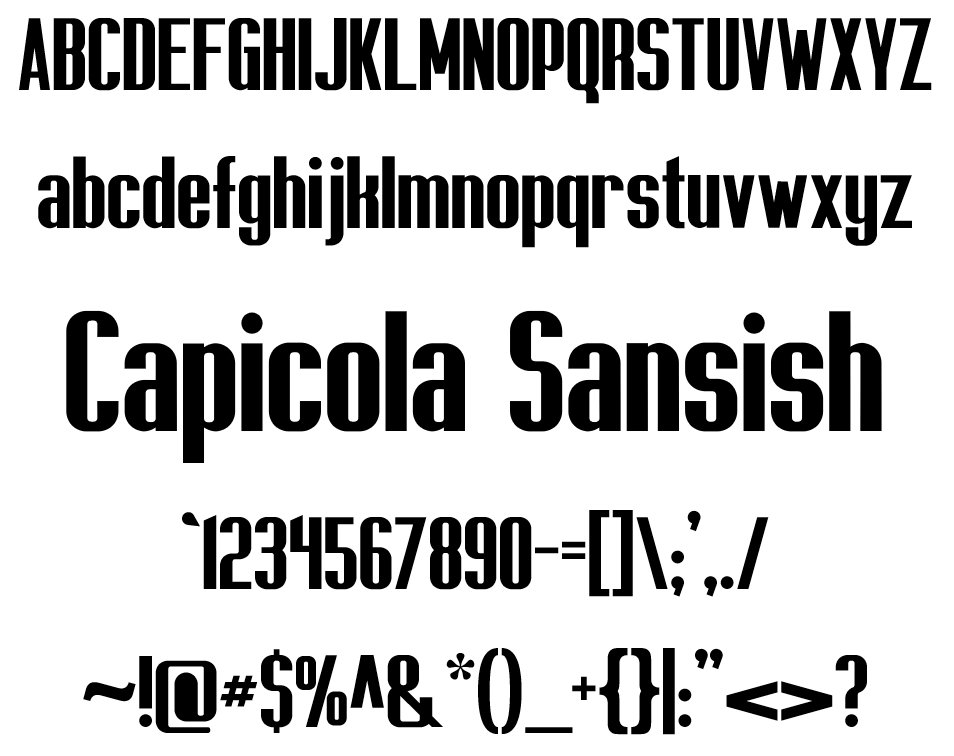
The Perfect Blend of Style and Nuance: Capicola Sansish Font
Have you ever found yourself in a creative conundrum, where you need to convey a sense of importance without overpowering the message? You’re not alone. As designers, we’ve all been there – stuck between the subtle and the bold. That’s where the Capicola Sansish Font comes in – a masterful blend of style and nuance that’s sure to elevate your designs.
Capicola Sansish Font is designed to fill that sweet spot where you almost need bold, but not quite. Its slightly thick sans-serif lines create a sense of sophistication without overwhelming the viewer. Whether you’re crafting a logo, heading, or body text, this versatile font is sure to bring a touch of elegance to your designs.
Capicola Sansish Font Key Features
- Font Family: Capicola Sansish, a unique sans-serif font designed for modern and minimalist designs.
- Unique Characteristics: The font features a clean, geometric design with subtle rounded edges, giving it a friendly and approachable feel.
Designer Review: Capicola Sansish Font
I was excited to dive into the Capicola Sansish Font, and I must say it’s a unique blend of modern and vintage elements. ✨ The font’s bold, sans-serif design makes it perfect for headings and titles, while the subtle rounded edges add a touch of elegance.
One of the standout features of Capicola Sansish is its excellent legibility. ✨ The font is clear and easy to read, even at small sizes, making it ideal for body text and other applications where readability is crucial.
- ⚠️ The font’s sans-serif design may not be suitable for more formal or traditional projects, as it lacks the sophistication of a serif font.
- ⚠️ The font’s bold weight may be too heavy for some applications, such as body text or fine print.
Overall, I’m impressed with the Capicola Sansish Font. ✨ It’s a great choice for modern designs that need a touch of personality and flair. While it may not be suitable for every project, it’s definitely a valuable addition to any designer’s font library.
The Capicola Sansish font is a versatile and modern sans-serif font, making it suitable for a wide range of applications.
- Graphic design projects
- Brochure and flyer design
Alternatives to Capicola Sansish Font
Montserrat is a sans-serif typeface that is highly versatile and suitable for a wide range of designs. It is known for its clean lines and geometric shapes, making it ideal for digital interfaces and body text. Montserrat is a great alternative to Capicola Sansish Font as it has a similar modern and sleek aesthetic.
Comparison: Montserrat is more geometric and modern, whereas Capicola Sansish Font has a slightly more rounded feel.
Open Sans is a clean and modern sans-serif typeface that is highly legible. It is designed to be used in digital interfaces and is suitable for body text, titles, and headings. Open Sans is a great alternative to Capicola Sansish Font as it has a similar feel and is highly versatile.
Comparison: Open Sans is more straightforward and simple, whereas Capicola Sansish Font has a slightly more ornate feel.
Lato is a modern sans-serif typeface that is highly versatile and suitable for a wide range of designs. It is known for its clean lines and elegant feel, making it ideal for digital interfaces and body text. Lato is a great alternative to Capicola Sansish Font as it has a similar modern and sleek aesthetic.